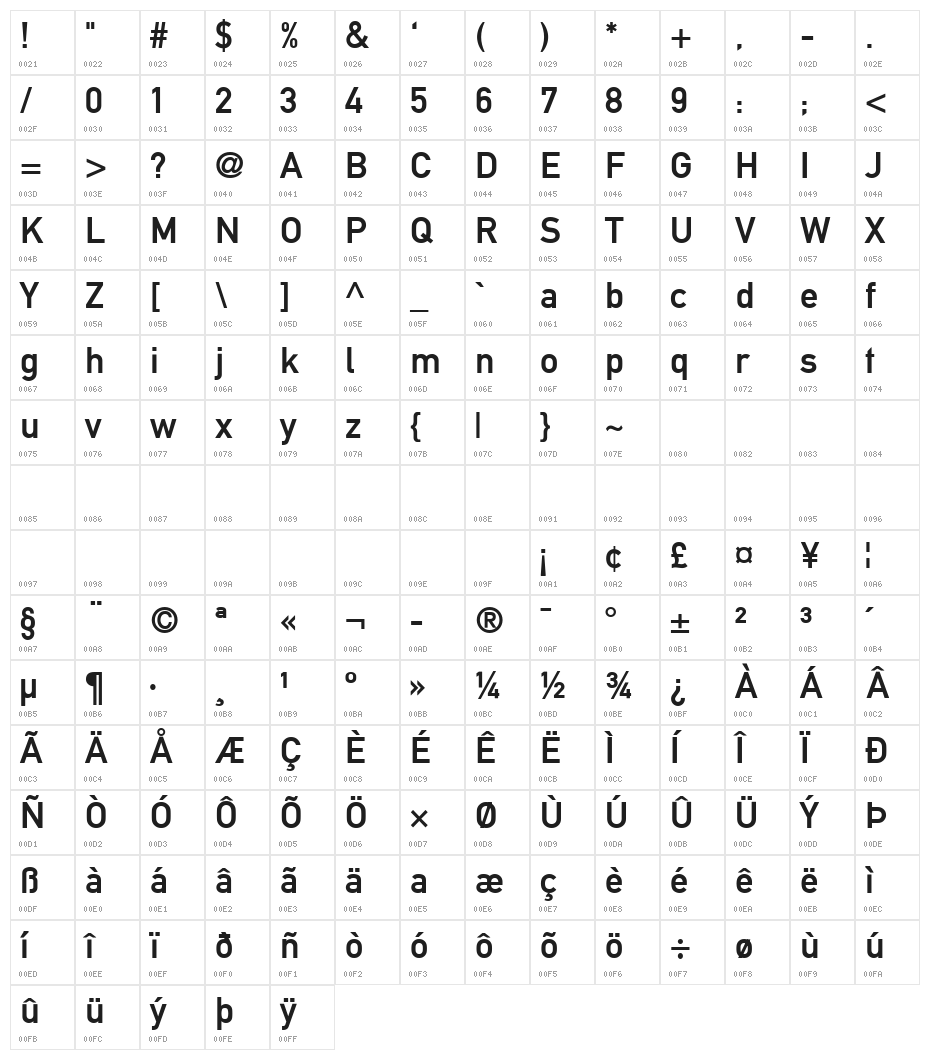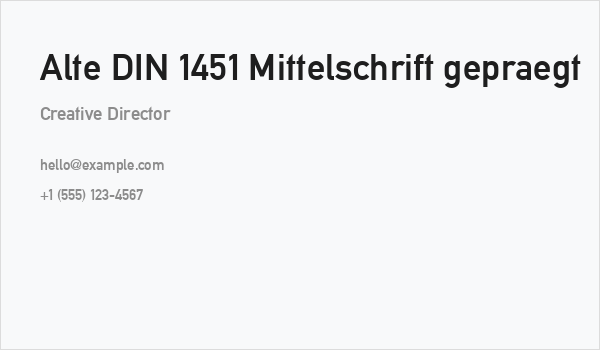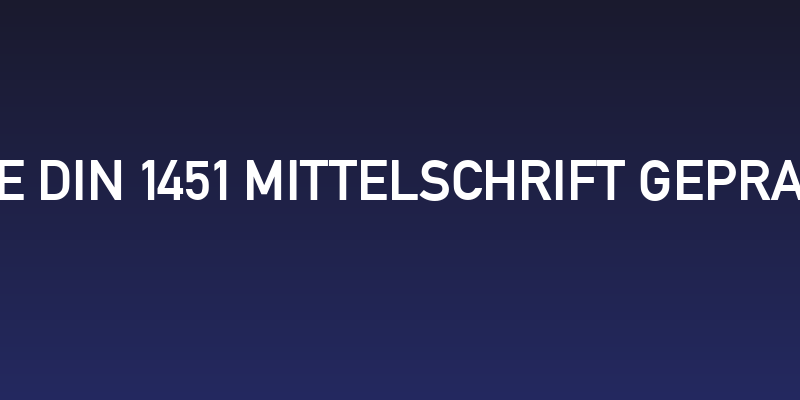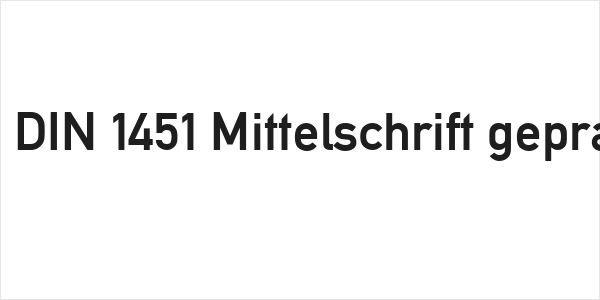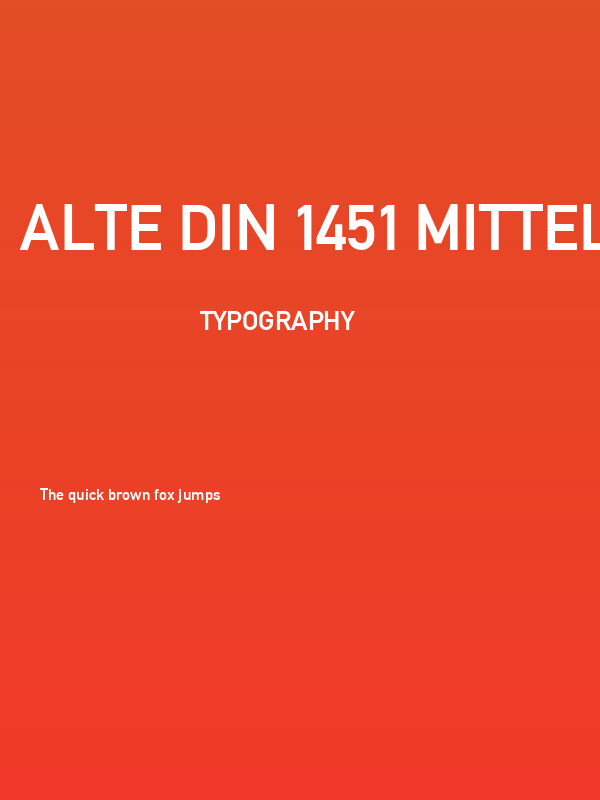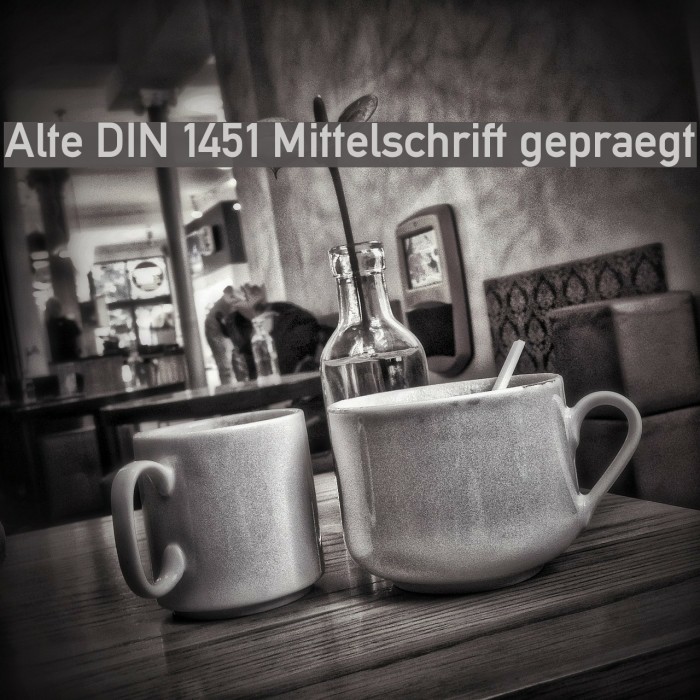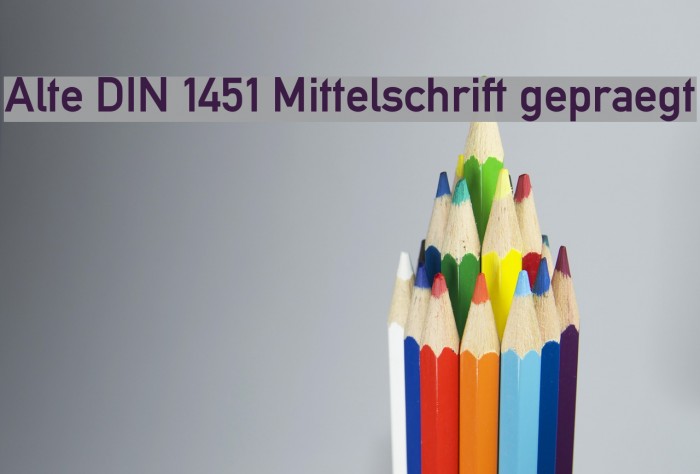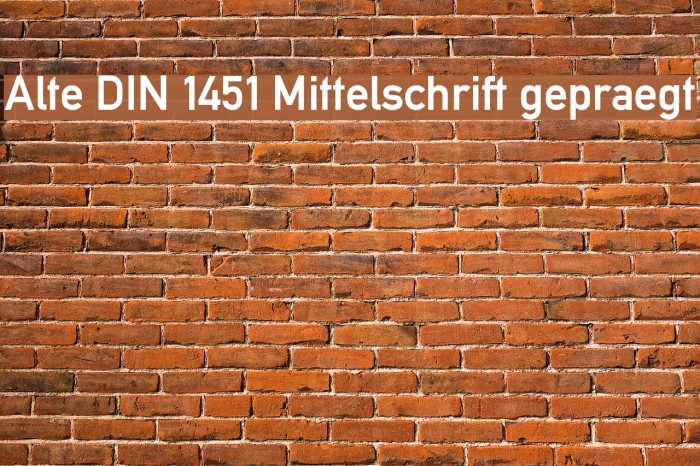
Alte DIN 1451 Mittelschrift gepraegt Font
Alte DIN 1451 Mittelschrift gepraegt Description
This font features a clean and straightforward design, characterized by its geometric and highly legible letterforms. The characters are uniform in width, contributing to a balanced and harmonious appearance. The uppercase and lowercase letters are well-proportioned, with a consistent stroke weight that enhances readability. The numerals are clear and distinct, making them suitable for various applications. The special characters are designed to complement the overall style, maintaining the font's cohesive look. This typeface is versatile, suitable for both digital and print media, and works well in both large and small sizes.
| Use Case | Signage, Technical documentation, User interfaces |
| Proposed Projects | Ideal for signage, technical documentation, user interfaces, and branding materials. |